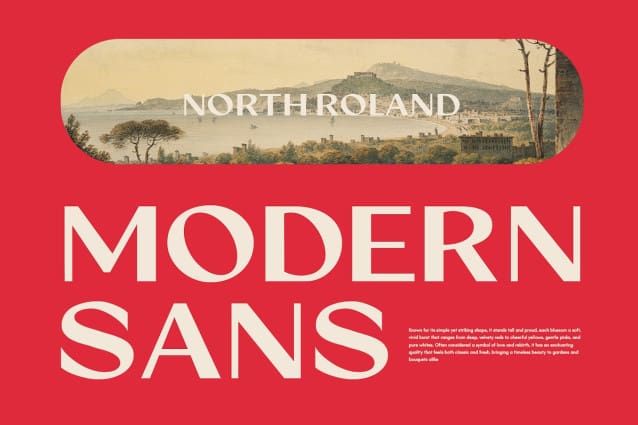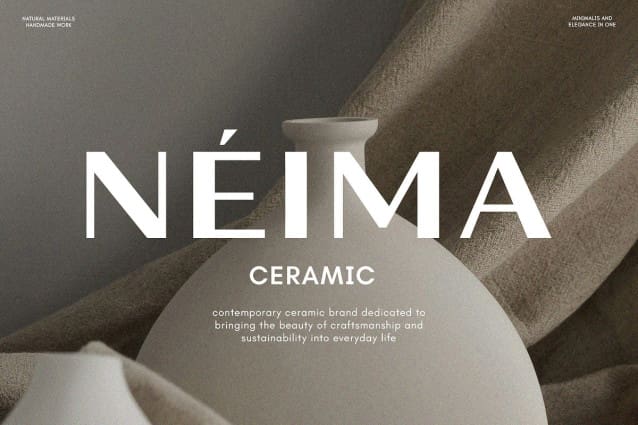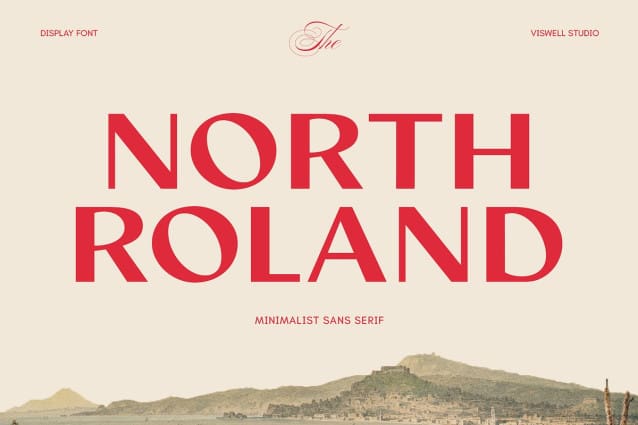
North Roland Font
North Roland, a refined minimalist sans-serif font designed by Viswell Studio. Perfectly balancing modern aesthetics with timeless elegance, this versatile display font offers a unique style for branding, editorial design, logo creation, and more. With bold, clean lines and distinctive letterforms, North Roland brings sophistication and a touch of flair to any project. Ideal for designers seeking a high-impact font with subtle vintage inspiration, this typeface elevates both digital and print media.